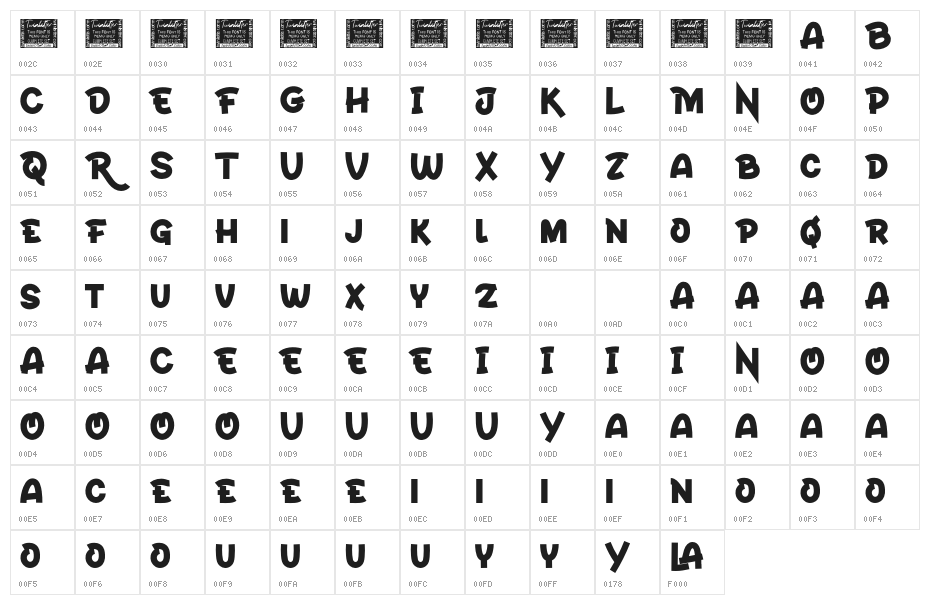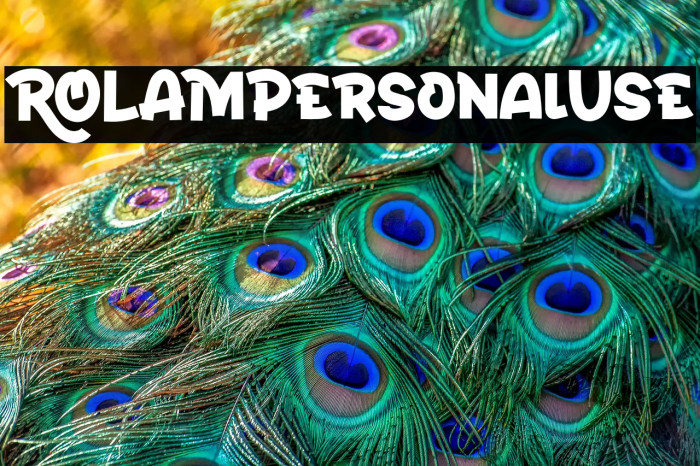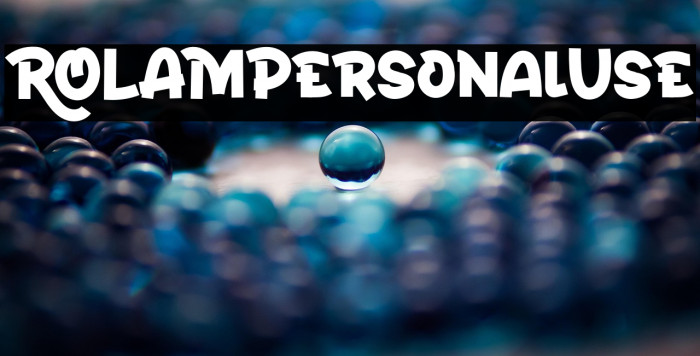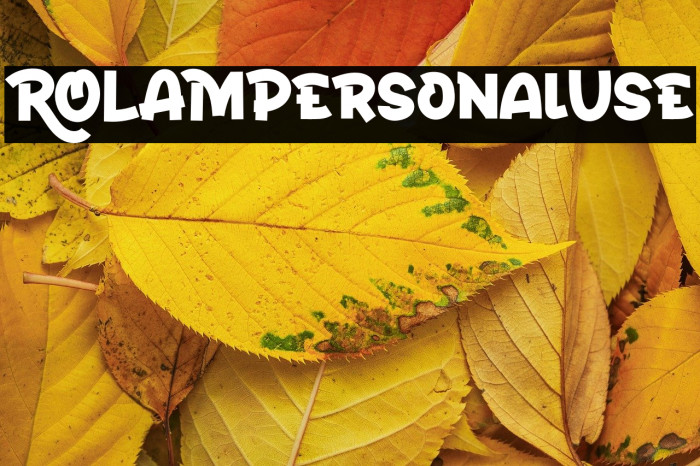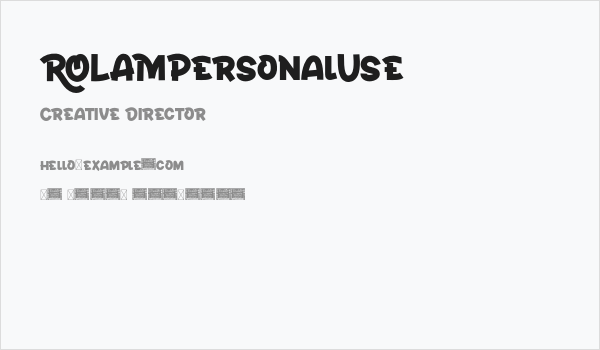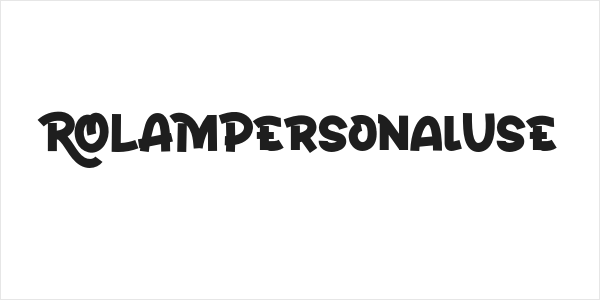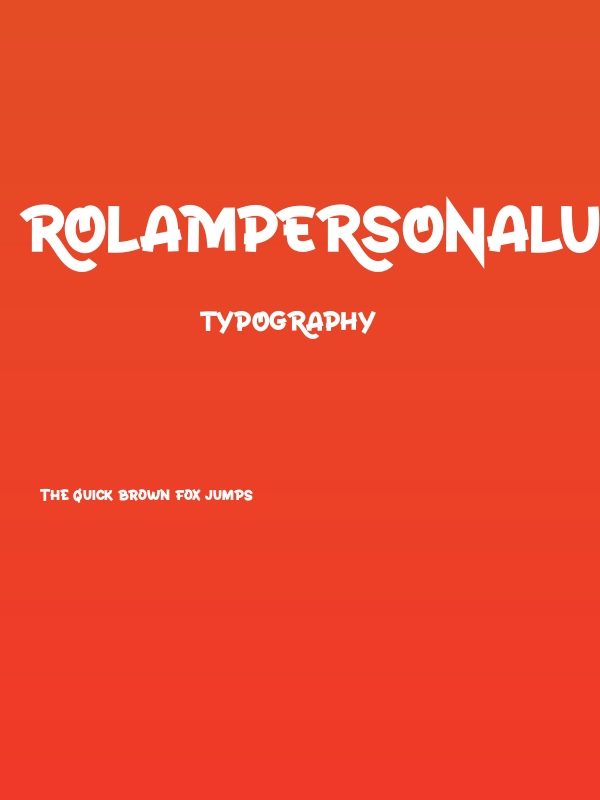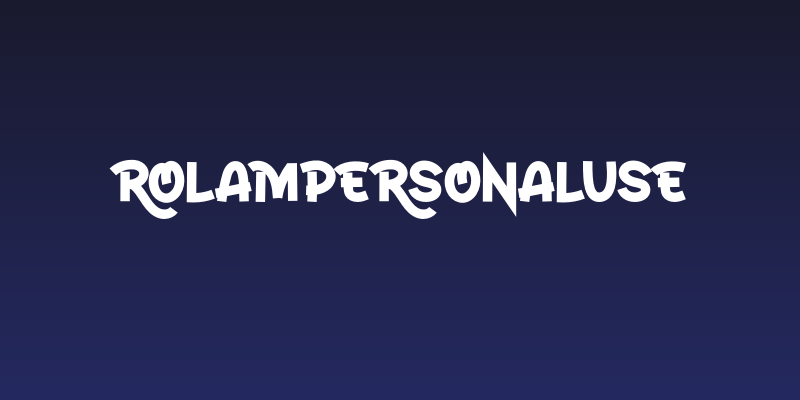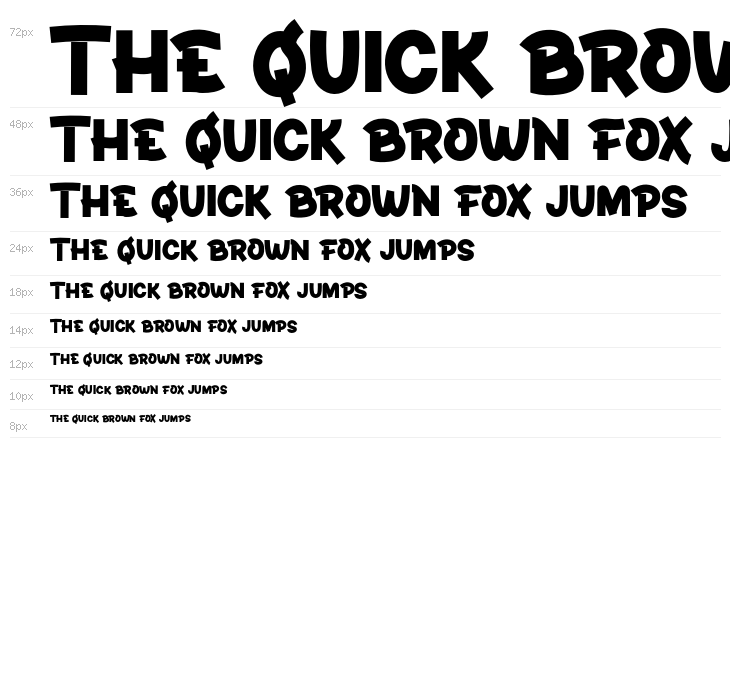
ROLAMPersonalUse Font
ROLAMPersonalUse Description
This bold and dynamic font features a playful and energetic style with thick, exaggerated strokes and a slightly irregular baseline. The uppercase letters are particularly striking, with a strong presence that commands attention. The font's unique character shapes and bold weight make it ideal for projects that require a standout visual impact. It is well-suited for use in headlines, posters, and branding materials where a fun and lively aesthetic is desired. The font's design is both modern and decorative, offering a fresh take on traditional letterforms.
| Overall Style | Modern, Decorative |
| Use Case | Headlines, Posters, Branding |
| Proposed Projects | Ideal for headlines, posters, branding, and any project needing a bold, energetic look. |